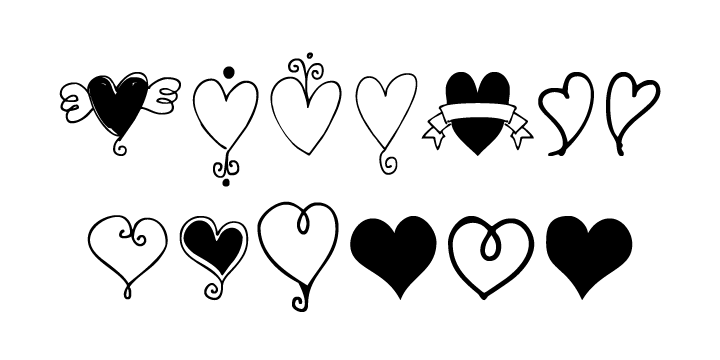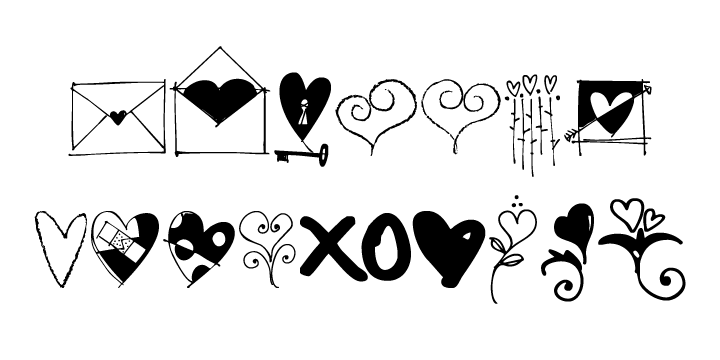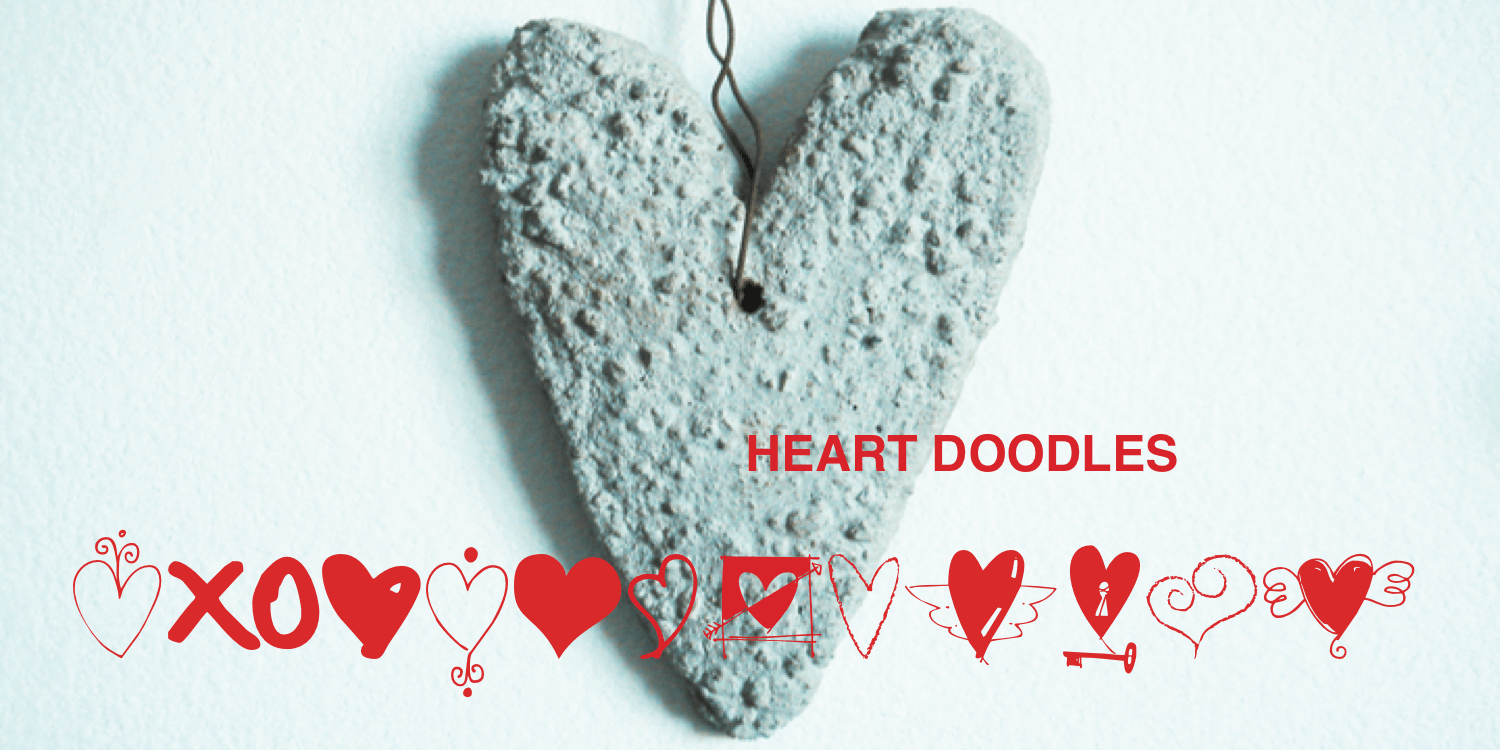
Heart Doodles
Font Family by Outside-the-Line
Here are 29 hearts to say "I love you" through out the year. Some are stand-alone hearts and others have matching hearts for creating all-over heart patterns or a series of similar but slightly different hearts. Created in the same style as Outside the Line's other Doodle fonts.